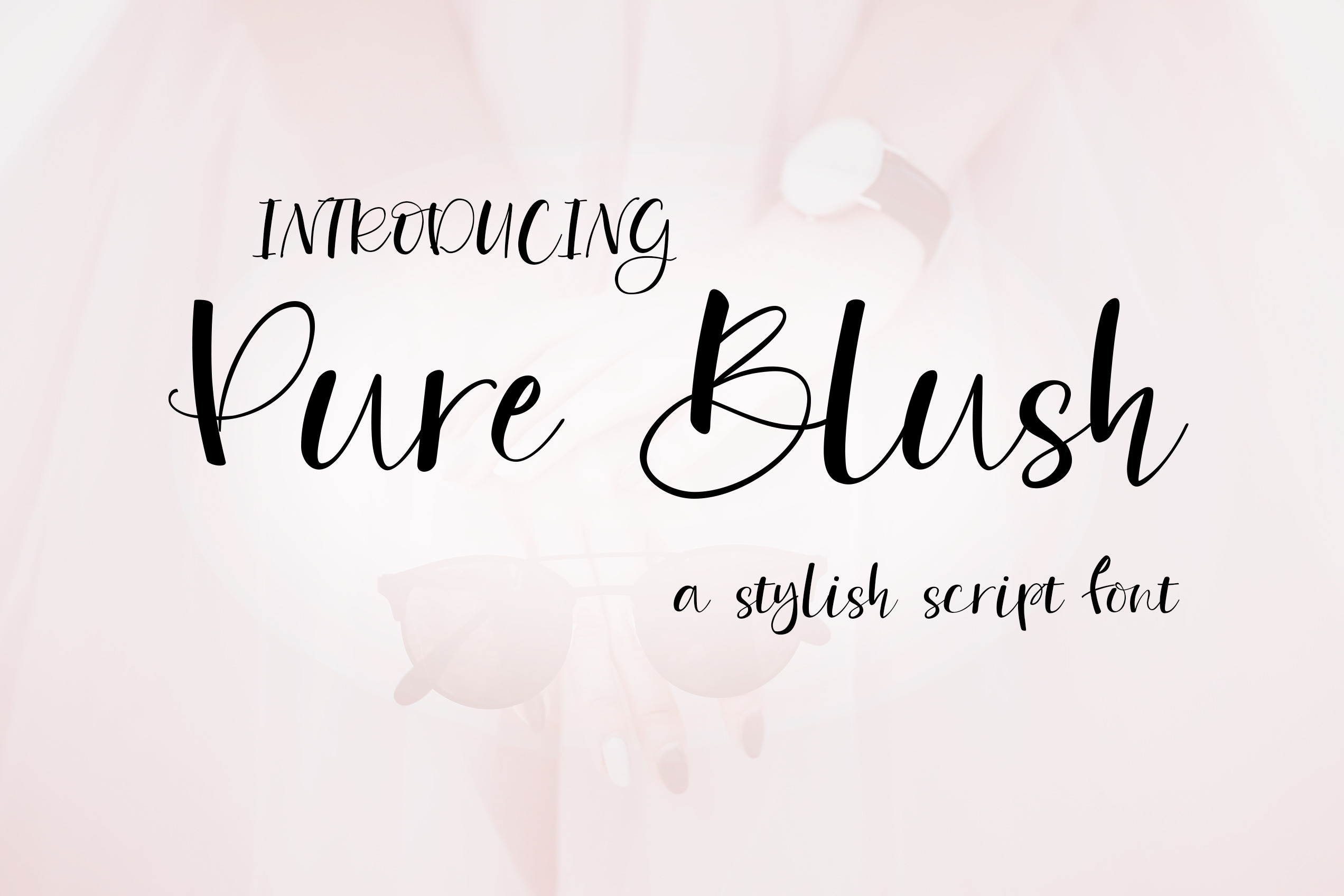
Pure Blush Stylish Script Font
This has quickly become my very, very favorite font! I'm in love with the playful bounce that is a hand crafted script! It was created to be easily read, but still fun! A script font that actually looks good in all caps or lower case! Go ahead, type in a few phrases and see how it looks!!!
- This has full multi lingual support for French, Spanish, Italian, Polish, and Latin. Western Latin, Central Latin, & South Eastern European.